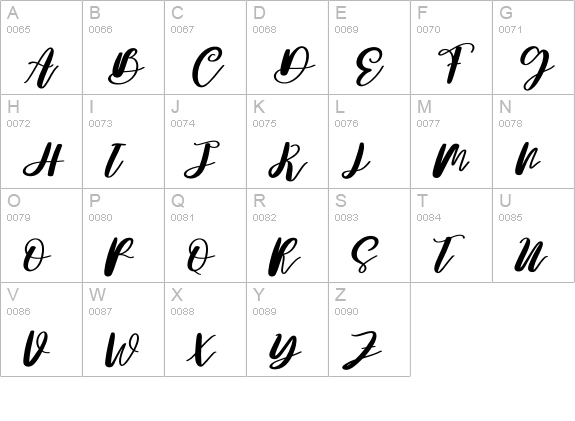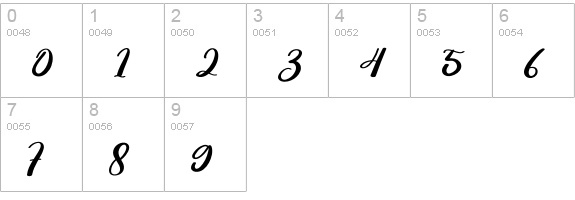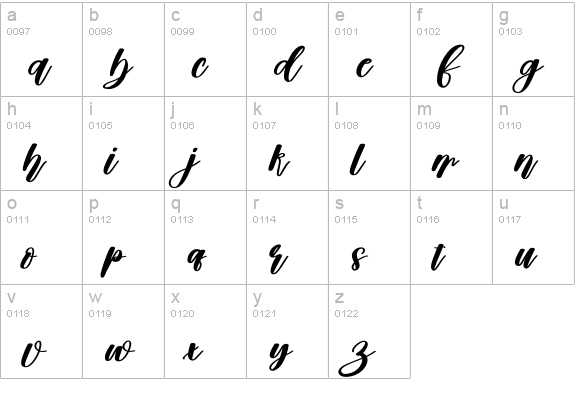
Pinkink Font Details
Pinkink is a free for personal use font in the Script > Handwritten category, designed by scratchones. It has been downloaded 10 times and is available for Windows, Mac and Linux.
Pinkink font is a charming and whimsical typeface that is perfect for adding a touch of playfulness to your designs. This font features elegant swirls and delicate curves that give it a unique and feminine look. Whether you're creating wedding invitations, branding materials, or social media graphics, Pinkink font will surely make your text stand out.